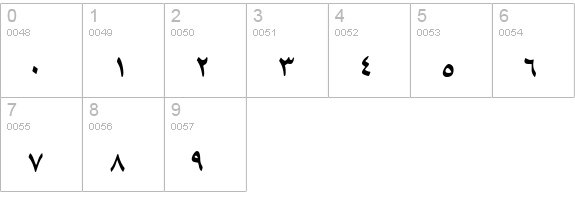
B Tehran Font Details
Introducing the exquisite B Tehran font, a versatile and elegant typeface that exudes sophistication and style. With its unique blend of modernity and classic charm, this font is perfect for a wide range of design projects, from branding to editorial design. What sets B Tehran font apart is its seamless integration of sleek lines and intricate details, resulting in a truly captivating visual experience. Whether used for headlines, body text, or logos, this font is sure to make a statement and leave a lasting impression on your audience. Best of all, B Tehran font is available for free download at FontsMarket.com, making it easily accessible for designers and creatives looking to add a touch of refinement to their work. Don't miss out on this opportunity to elevate your designs with the timeless beauty of B Tehran font. Download it today and let your creativity shine!